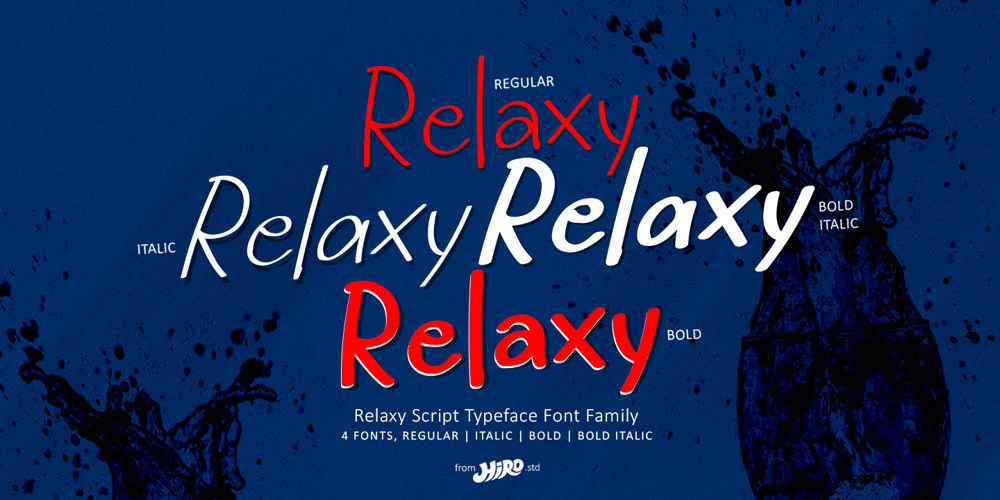
Relaxy Font Family was designed by Chairul Ashar and published by HIRO.std. Relaxy contains 4 styles and family package options. Relaxy is a Brush Handwritten Script.This font describes about funny, dynamic, informal, humanist, easy going, and will bring a good combination for your works.FEATURES- 3 alternates Uppercase and Lowercase letters- Numbering and Punctuations- Multilingual Support- Works on PC or Mac- Simple Installation- PUA Encoded CharactersUSERelaxy works great in any poster, book, magazine, typeface, quotes, print, social media posts, e-book , and any projects that need semi casual and informal taste.